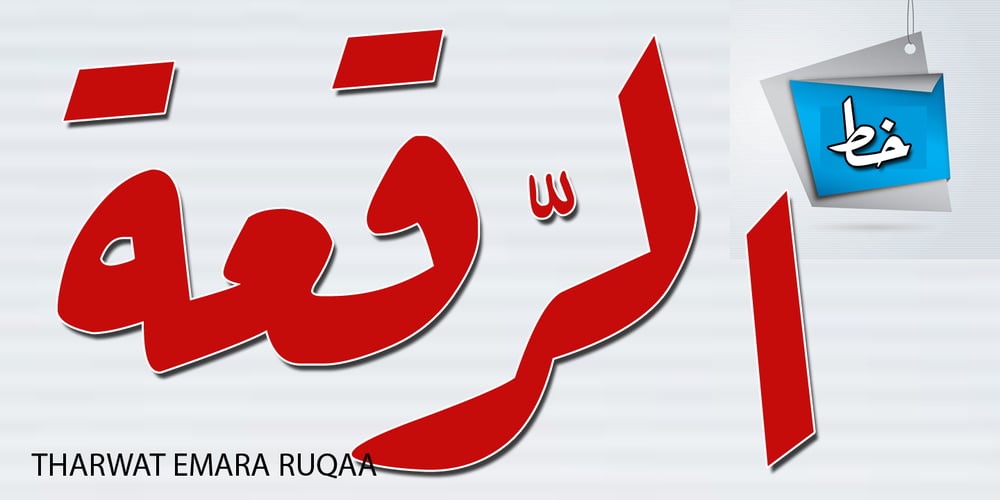
TE Ruqaa Font Family was designed by Tharwat Mohamed Emara and published by Tharwat Emara. TE Ruqaa contains 5 styles and family package options. Ruqaa font is one of the original Arabic fonts. It is the most common font and is written in most Arab countries because it has the potential to be written in a narrow space when compared to other Arabic fonts. It is used in the titles of books, magazines, daily newspapers, commercials, banners, advertising, holiday cards, newspaper headlines, Introduction to students.